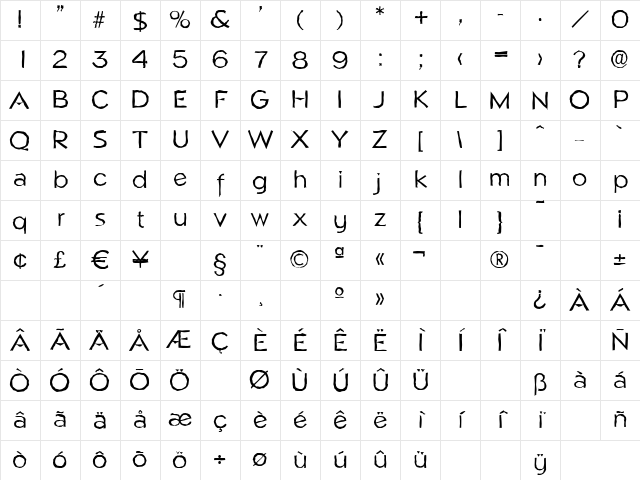
Complete NapoliAntique Regular glyph index. Displaying only characters natively supported by NapoliAntique Regular font.
NapoliAntique wears its vintage influences proudly, with letterforms that recall mid-century signage, classic packaging, and nostalgia-driven design.
Font Pairing: Combine NapoliAntique with a simple slab or neutral sans - period-accurate companions reinforce the vintage feel without competing for attention.
Pro Tip: Lean into NapoliAntique's period character by pairing it with aged paper textures, muted colour palettes, and vintage illustration styles.